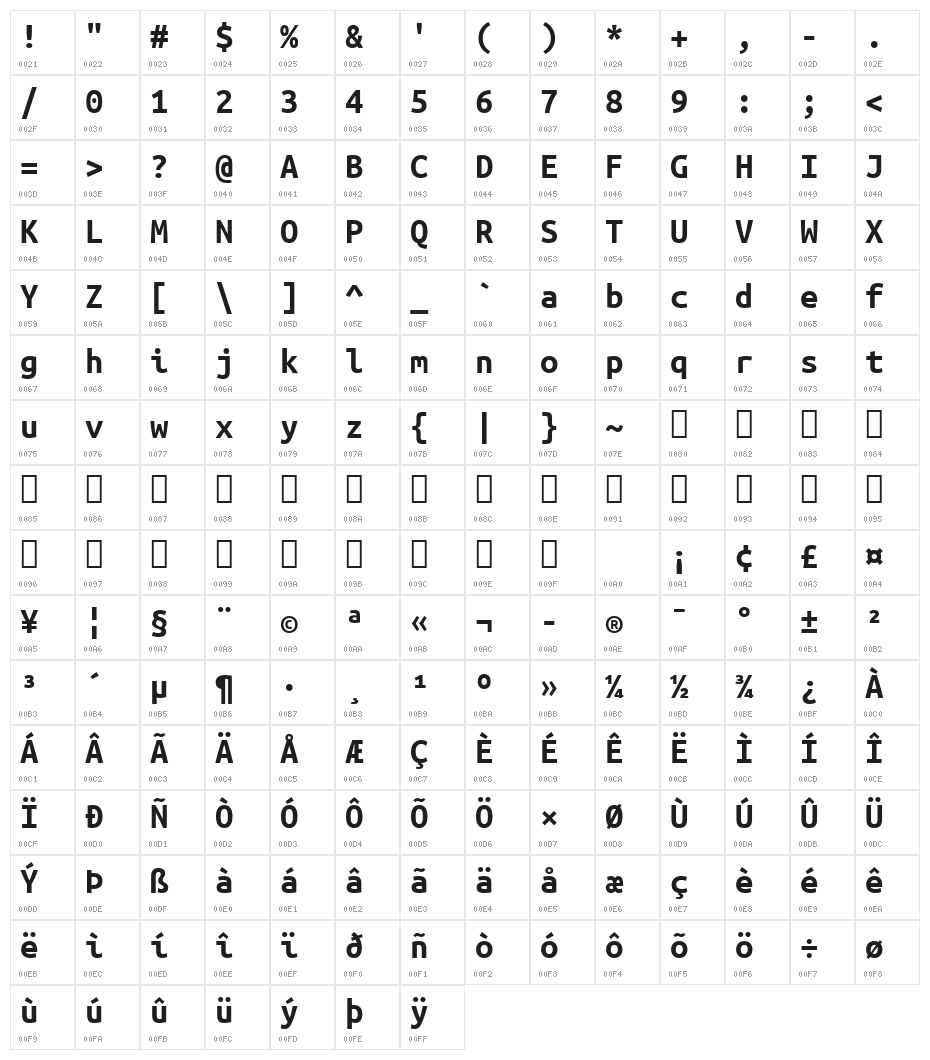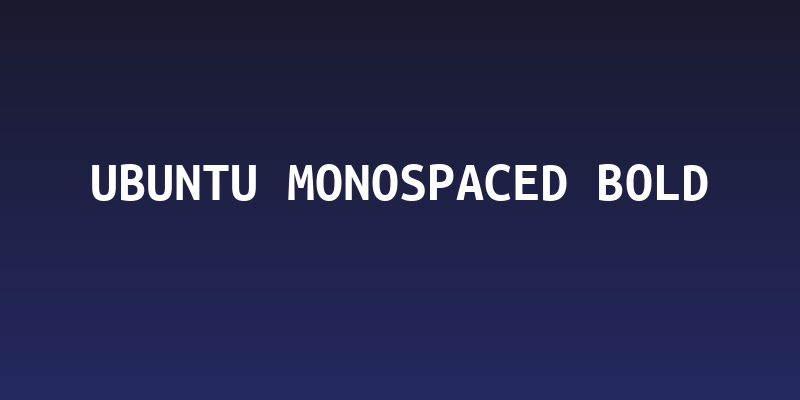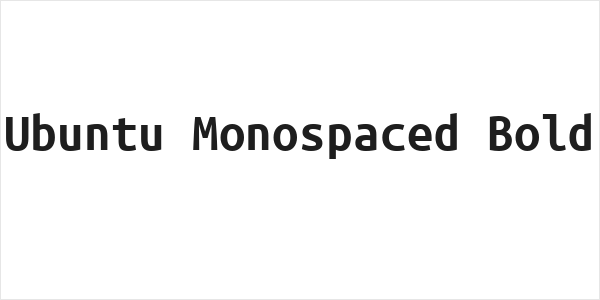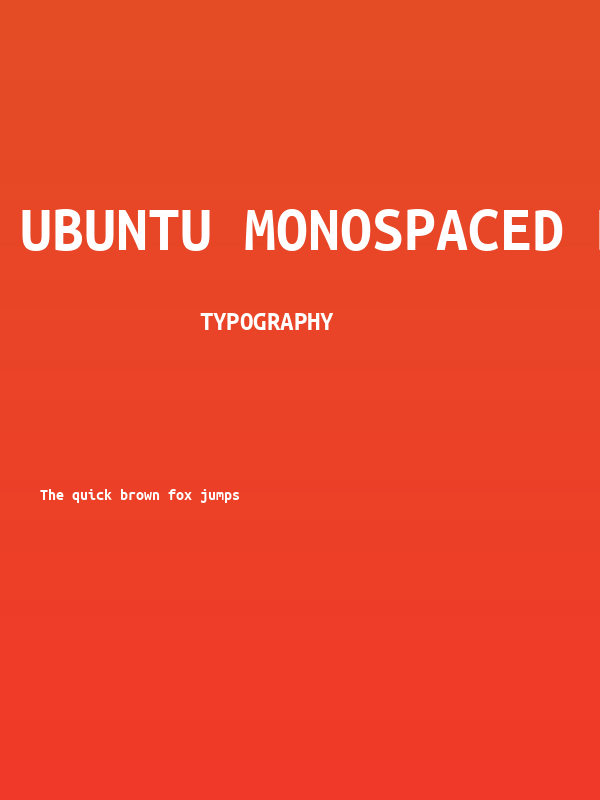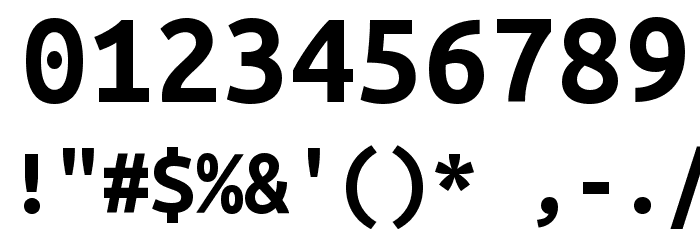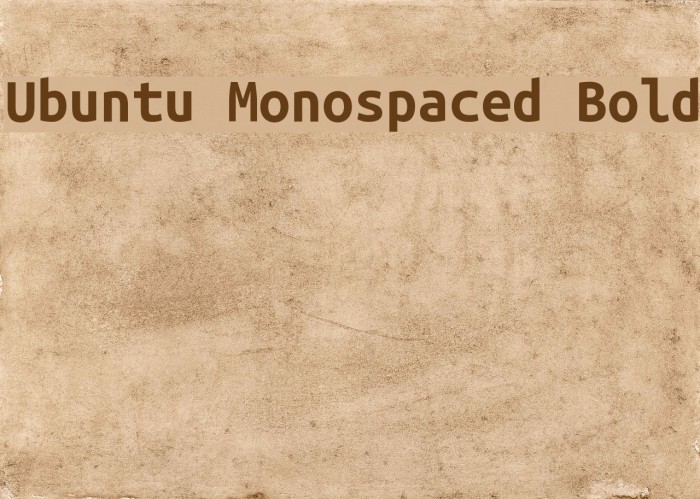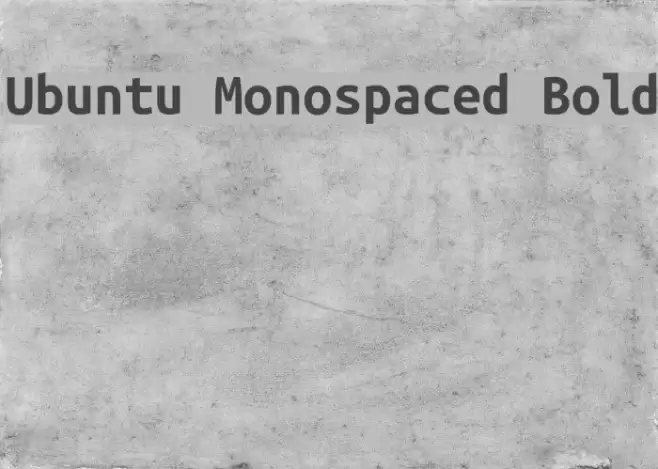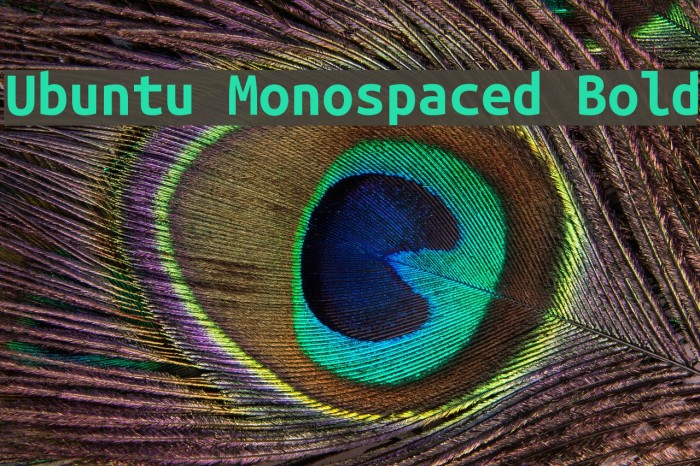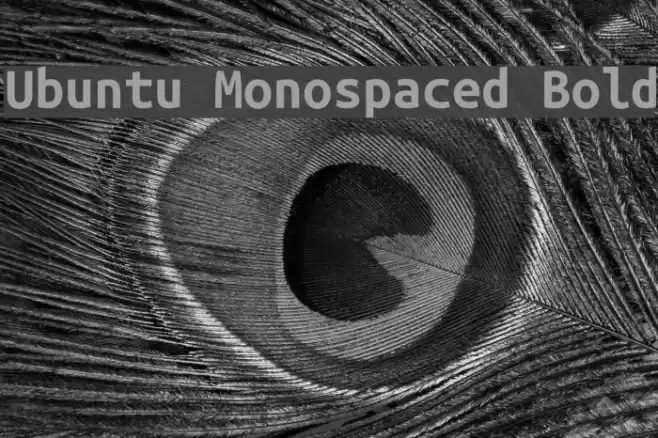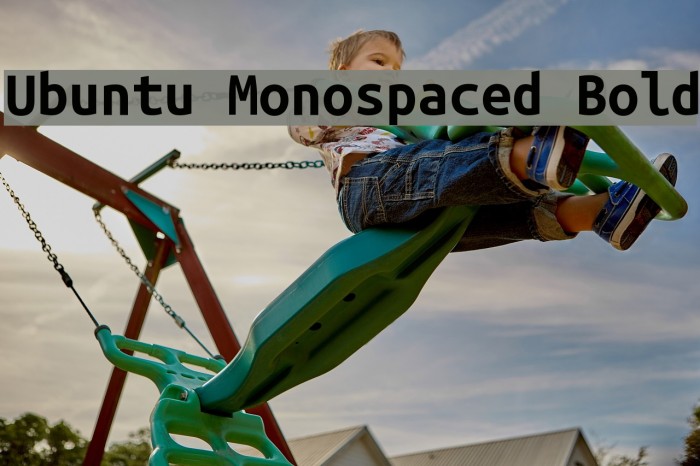
Ubuntu Monospaced Bold Font
Ubuntu Monospaced Bold Description
This font is a monospaced typeface characterized by its uniform character width, making it ideal for coding and tabular data. The bold weight enhances readability, providing a strong presence on the page. Each letter and numeral is designed with clear, distinct lines and curves, ensuring legibility even at smaller sizes. The font maintains a modern aesthetic with a clean and straightforward appearance, suitable for both digital and print media. Its consistent spacing and alignment make it a reliable choice for technical documents and user interfaces.
| Use Case | Coding, Technical documents, User interfaces |
| Proposed Projects | Suitable for coding environments, technical documentation, user interfaces, and data tables. |